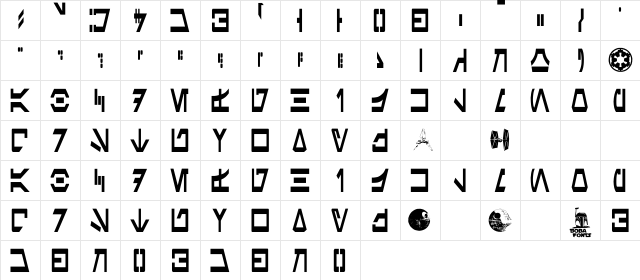
Aurek-Besh Narrow Regular
Design Context for Aurek-Besh Narrow Typeface
Aurek-Besh Narrow is a composed and adaptable typeface that performs quietly and consistently across a wide range of design contexts. Its narrow stance lets it pack a punch even in space-constrained designs.